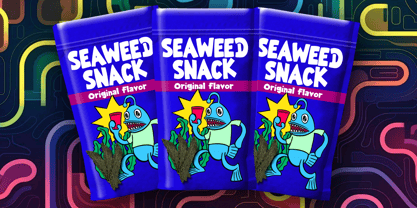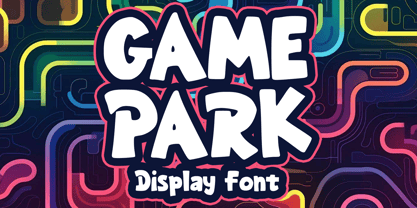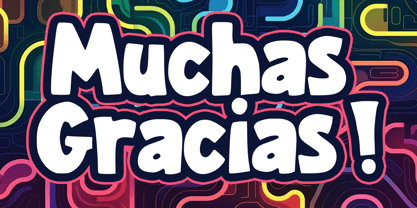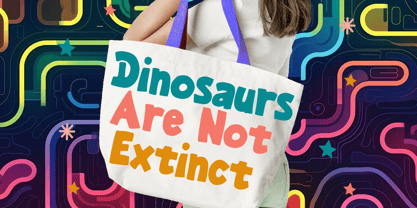
Game Park
Die Schriftfamilie Game Park wurde von Gabriel Valentinus entworfen und von Mvmet veröffentlicht. Game Park enthält 1 Stile. Mehr über diese Familie
Introducing Game Park, a vibrant and audacious game font that infuses any project with an exhilarating spirit. Its boundless versatility allows it to transform a wide range of applications, from quirky t-shirts and engaging children’s book illustrations to innovative game designs, heartfelt greeting cards, and eye-catching stickers and posters. With its electrifying appeal and uniquely adaptable style, Game Park is perfect for crafting charmingly captivating designs that stand out. Whether you're working on branding, web projects, or editorial content, this font family offers the perfect blend of creativity and functionality.